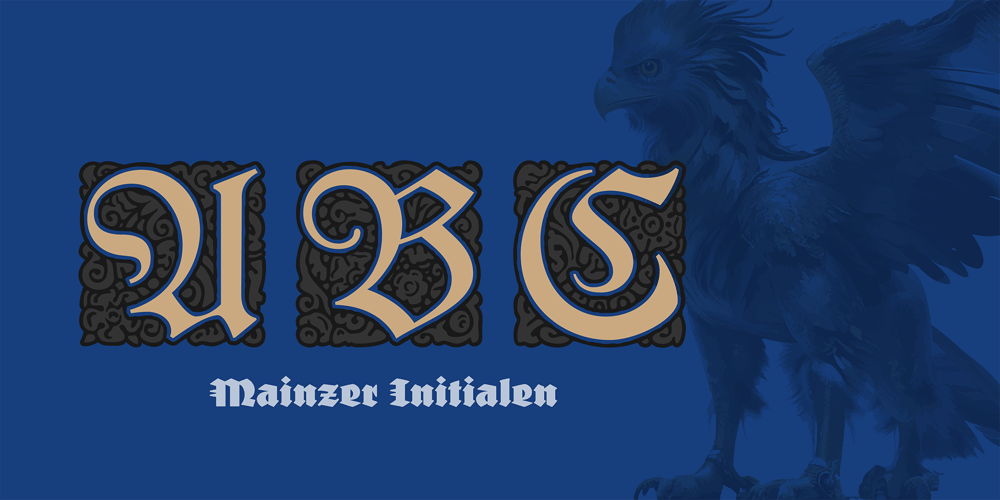
FDI Mainzer Initialen
FDI Mainzer Initialen font
FDI Mainzer Initialen Font Family was designed by Ralf Herrmann and published by FDI. FDI Mainzer Initialen contains 11 styles and family package options. Based on a letterpress typeface using the same name, FDI Mainzer Initialen is a carefully crafted set of German blackletter initials using three colors per style. 10 palettes are available as individual styles and can be used in design applications such as Photoshop, Illustrator, InDesign and Affinity Designer. Make sure your operating system and apps already support OpenType SVG fonts before buying a license for FDI Mainzer Initialen.